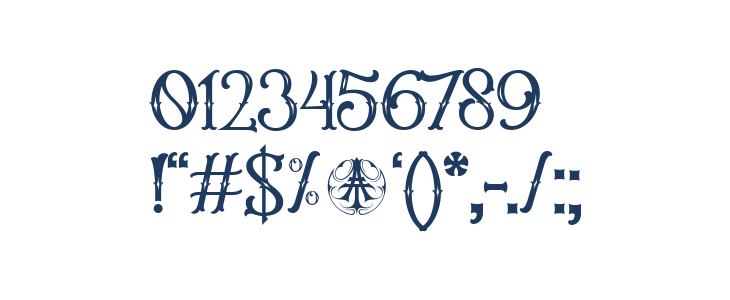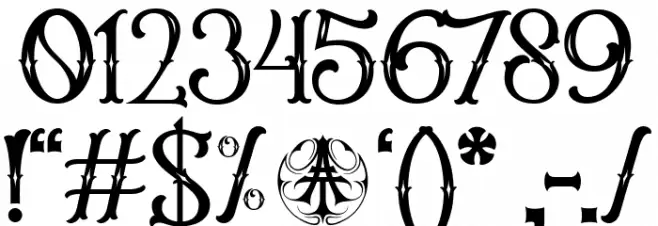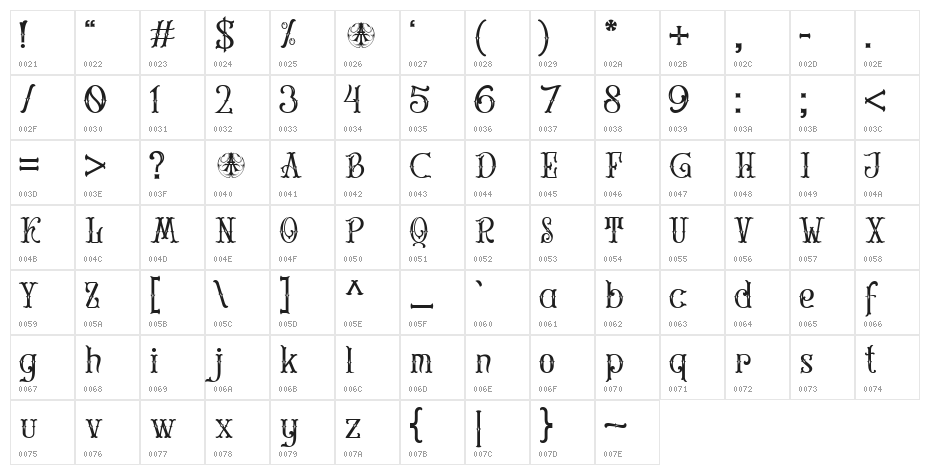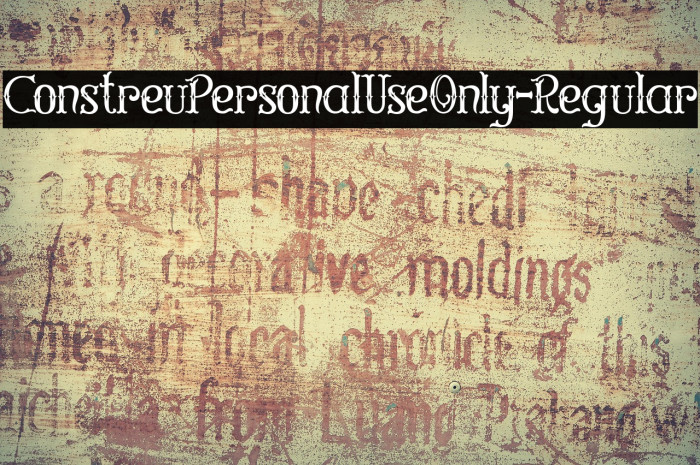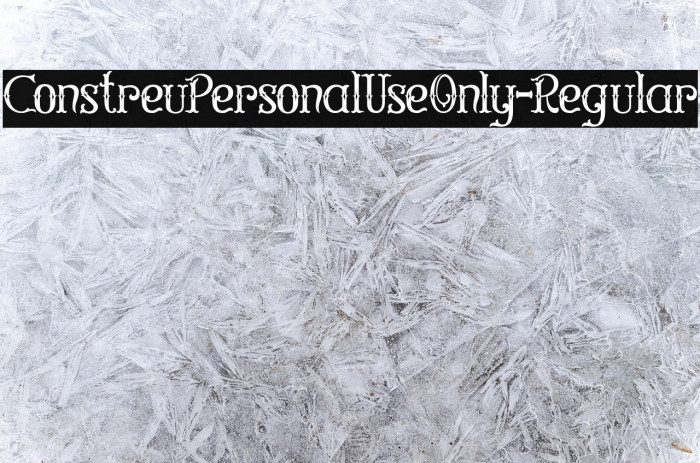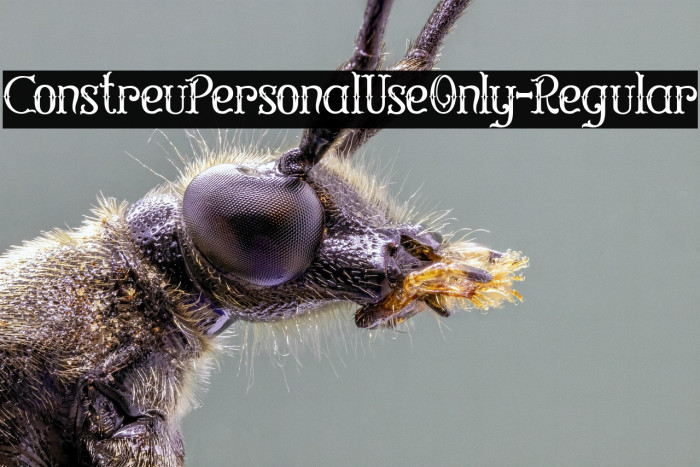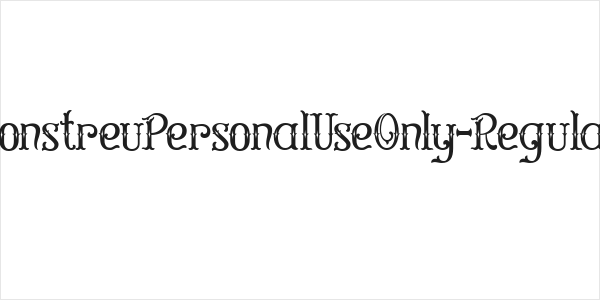
ConstreuPersonalUseOnly-Regular Font
ConstreuPersonalUseOnly-Regular Description
This font features an intricate and decorative style, characterized by its ornate and elaborate design. Each letter is adorned with unique embellishments, giving it a distinct and artistic appearance. The uppercase and lowercase letters maintain a consistent theme, with swirling lines and pointed edges that create a sense of elegance and sophistication. The numbers and special characters follow the same decorative pattern, ensuring a cohesive look across all glyphs. This font is ideal for projects that require a touch of creativity and flair, making it suitable for artistic and expressive designs.
An ornate and decorative font with intricate embellishments from Regular fonts.
- Proposed Projects: Ideal for invitations, artistic posters, branding, and decorative headings.
- Use Case: Headlines, Logos, Artistic designs